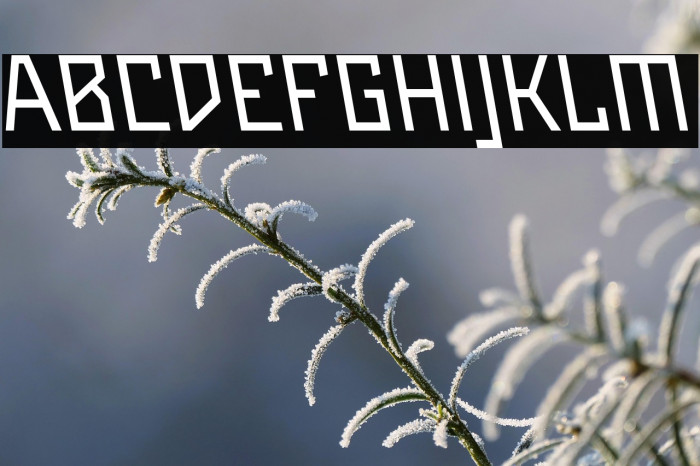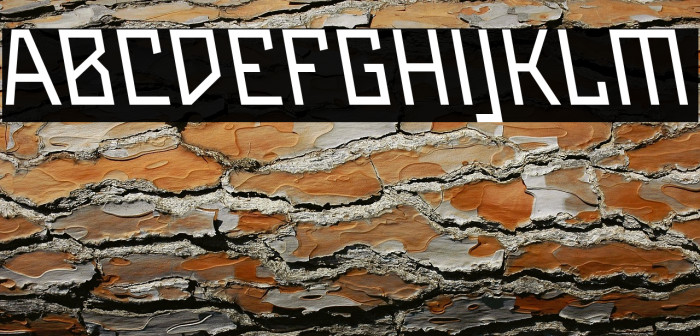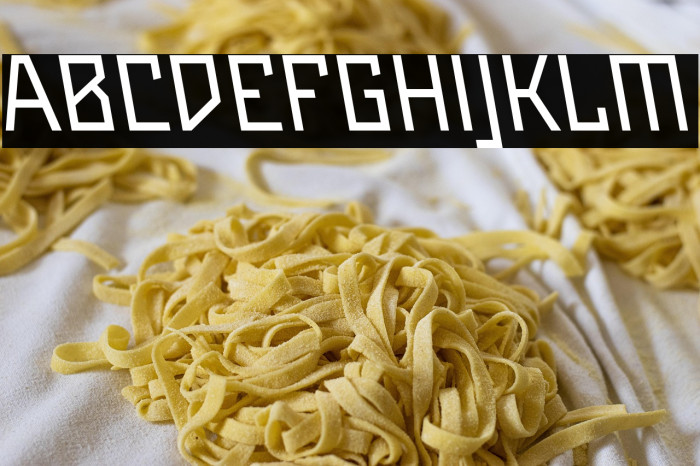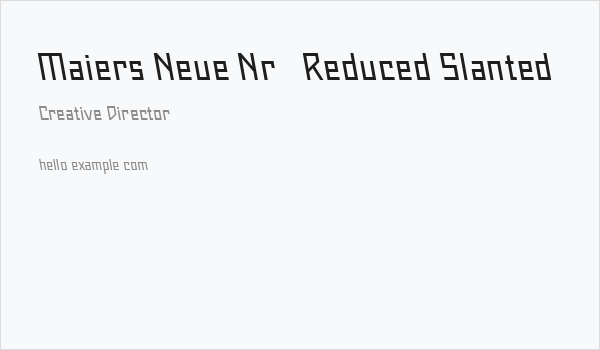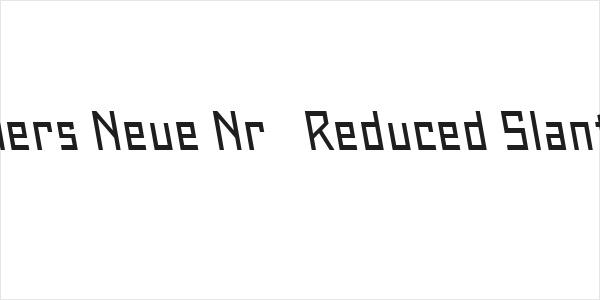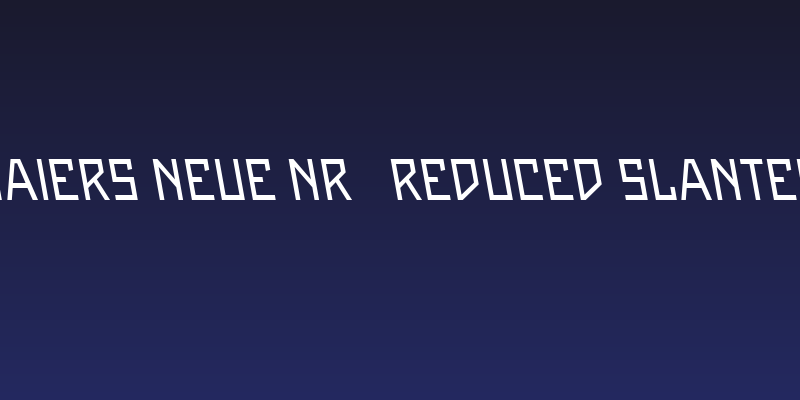
Maiers Neue Nr.8 Reduced Slanted Font
Maiers Neue Nr.8 Reduced Slanted Description
This font features a geometric and angular design with a distinctly modern and futuristic feel. The characters are constructed with straight lines and sharp angles, giving them a technical and precise appearance. The uppercase letters are bold and prominent, while the lowercase letters maintain a consistent style with slightly reduced height. The font's slanted orientation adds a dynamic and forward-moving energy, making it suitable for contemporary and innovative design projects. The uniform stroke width across all characters provides a clean and cohesive look, enhancing readability while maintaining a unique aesthetic.
| Proposed Projects | Ideal for tech branding, futuristic posters, and innovative product packaging. |